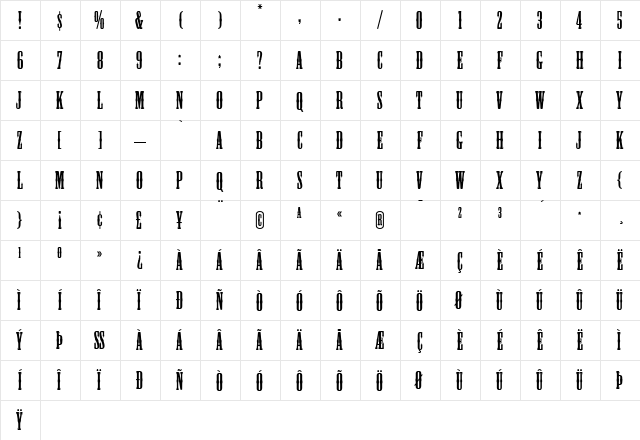
Mesquito Regular Font Preview
Mesquito Regular
Mesquito Regular Font Details
Design Context for Mesquito Typeface
Mesquito is a composed and adaptable typeface that performs quietly and consistently across a wide range of design contexts.